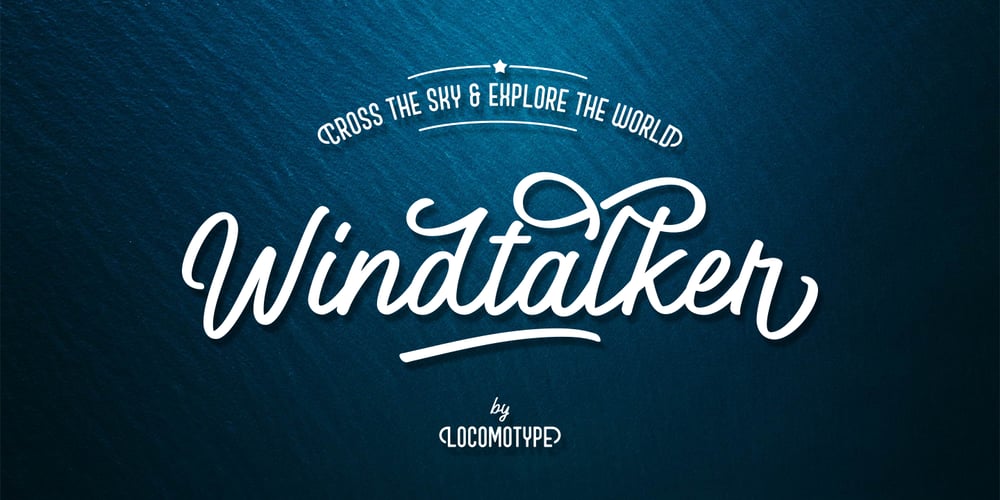
Windtalker
Windtalker font
Windtalker Font Family was designed by Arwan Sutanto and published by Locomotype. Windtalker contains 3 styles and family package options. Windtalker is a casual script font that is based on a scratch of calligraphy brush, paired with a thick and strong sans font so you can easily mix and match for an interesting work. For the script variant, Windtalker comes with two variations: Wintalker Regular with a smooth curve and Windtalker Rough with a roughly pressed style. As well as some extra swash to spice up your design project. The script has hundreds of beautiful glyphs with many opentype features such as ligatures, stylistic alternates, swash capitals, stylistic sets, initial and terminal forms that make it more unique and more personal. Windtalker is very versatile, where you can use it for various purposes such as greeting cards, invitations, logotype, posters, quotes, packaging and various merchandises where you want more personalized typography.